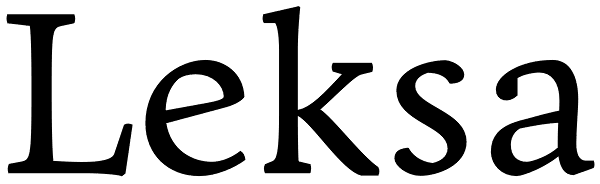
Leksa
Leksa is an oldstyle, even a bit old-fashioned text family in 12 faces, including six upright and six italic ones, from Light to Black, with both oldstyle and tabular digits and true small caps. The typeface works best in the books of classical...